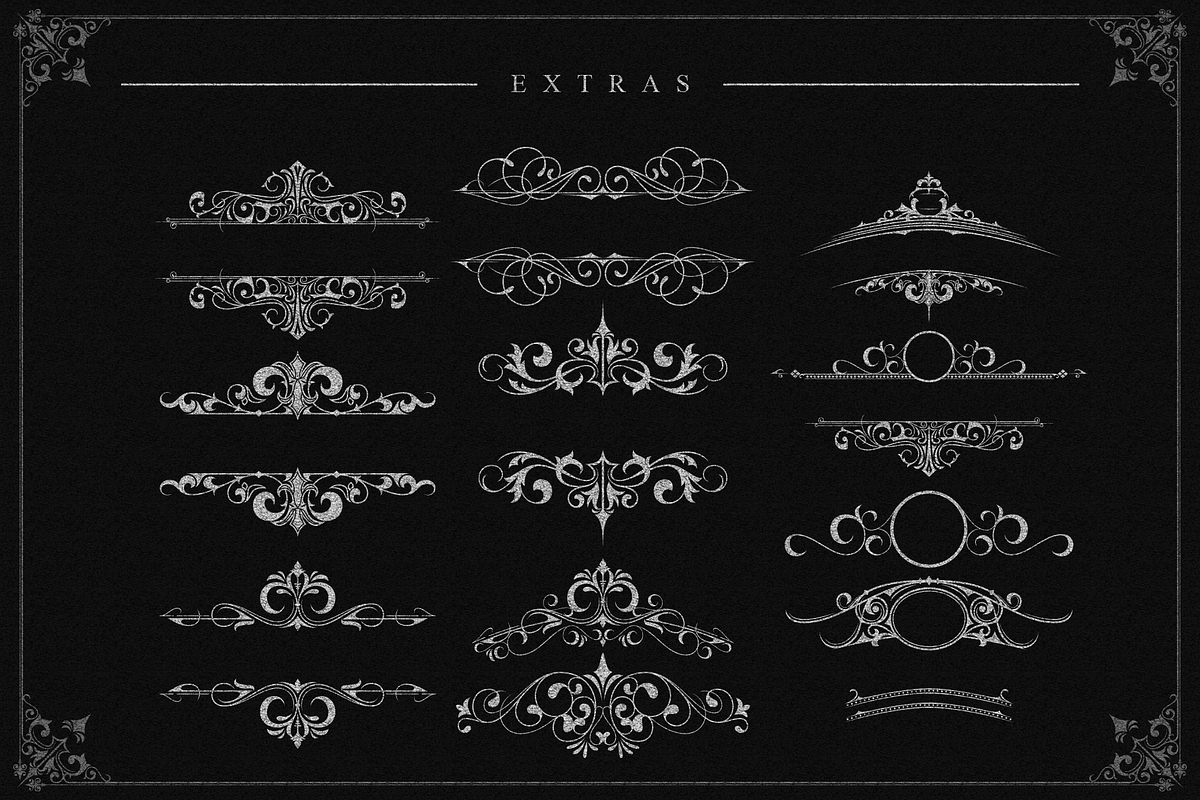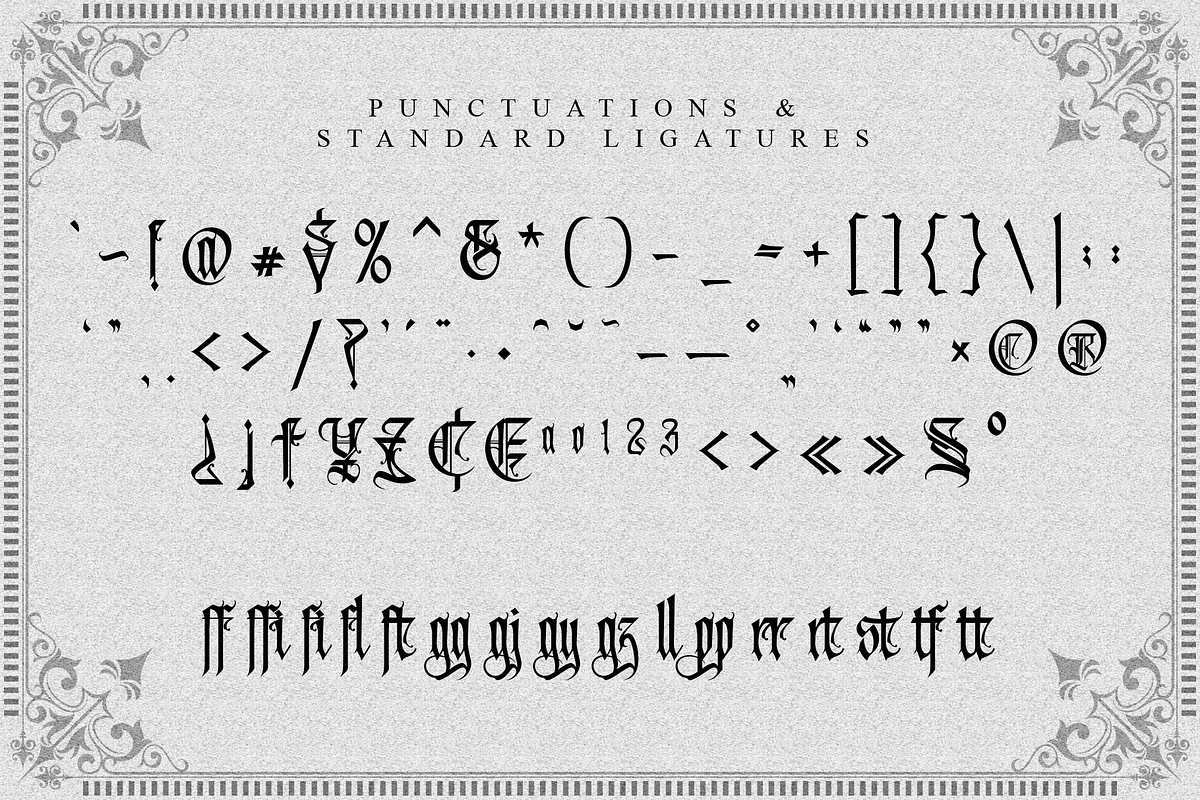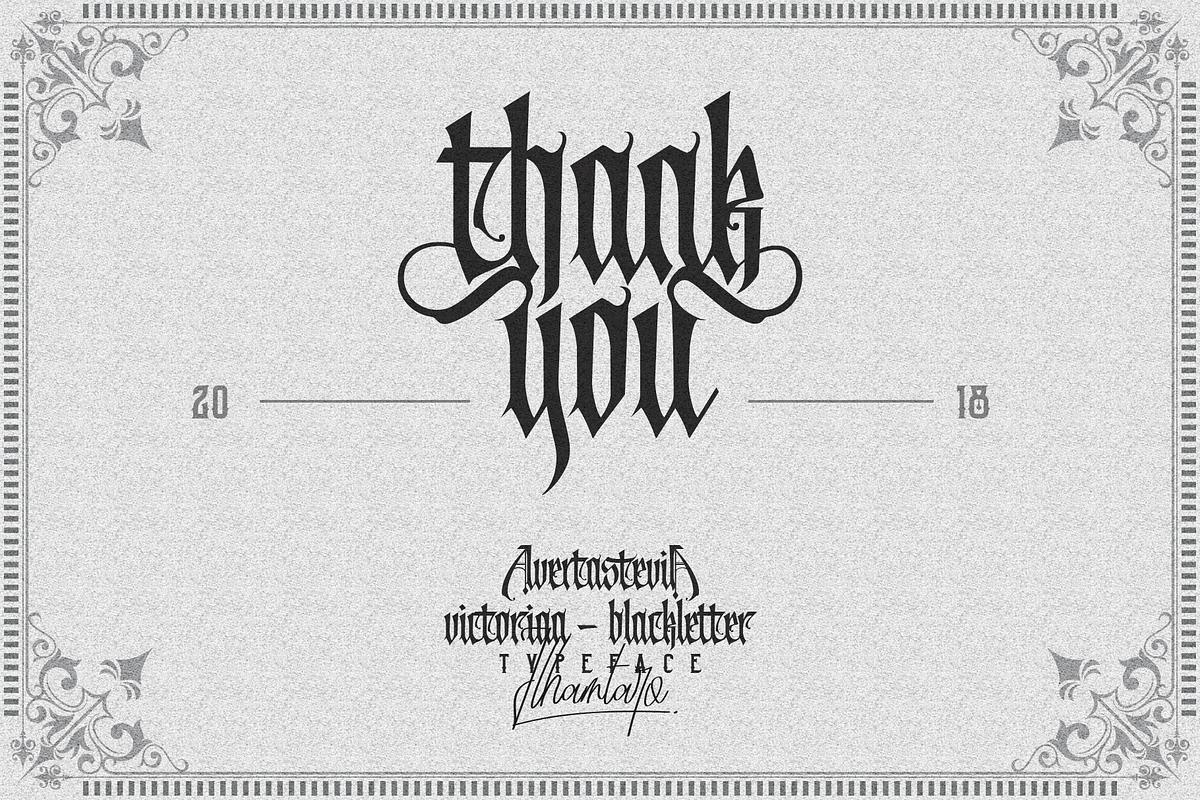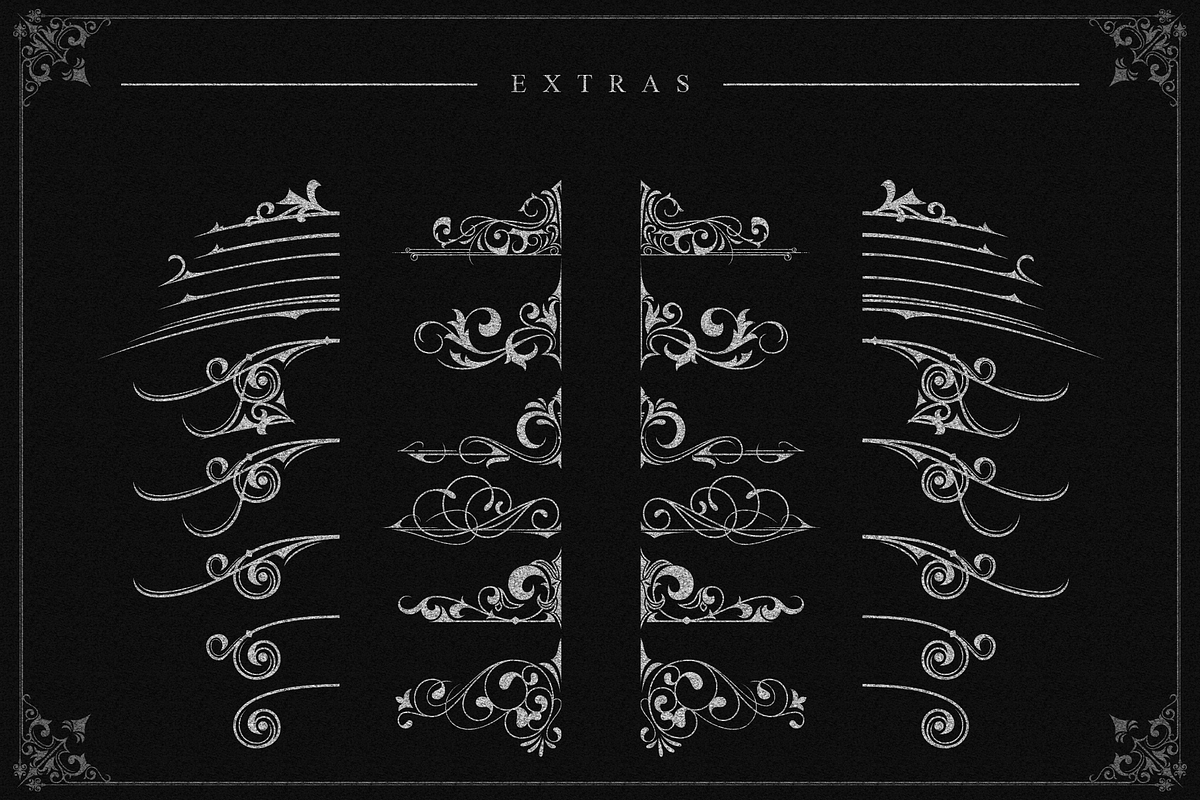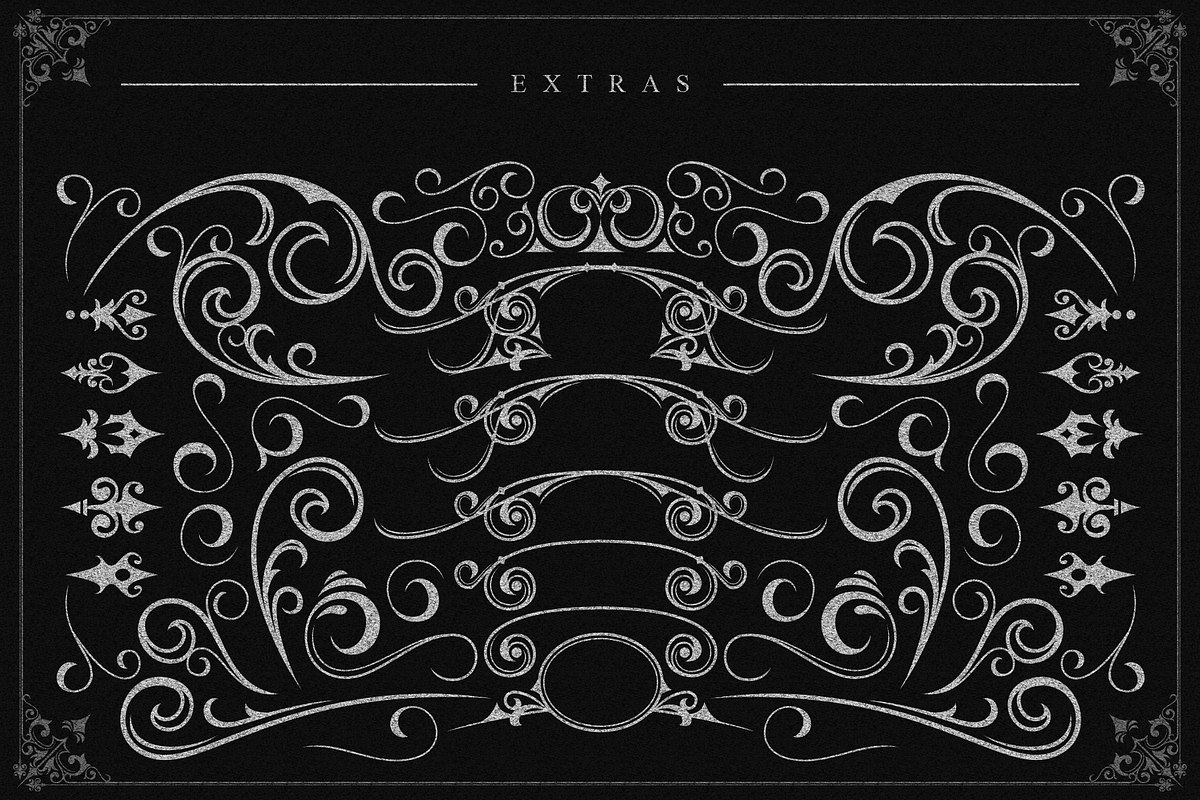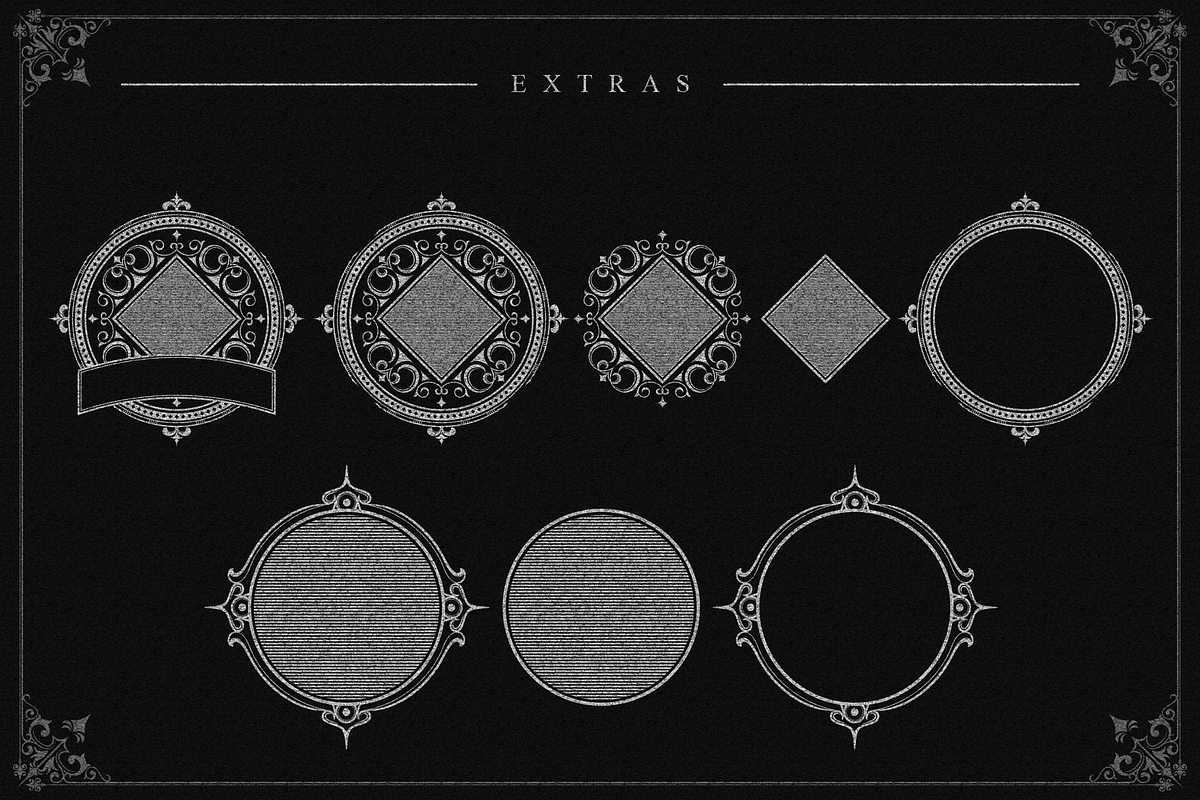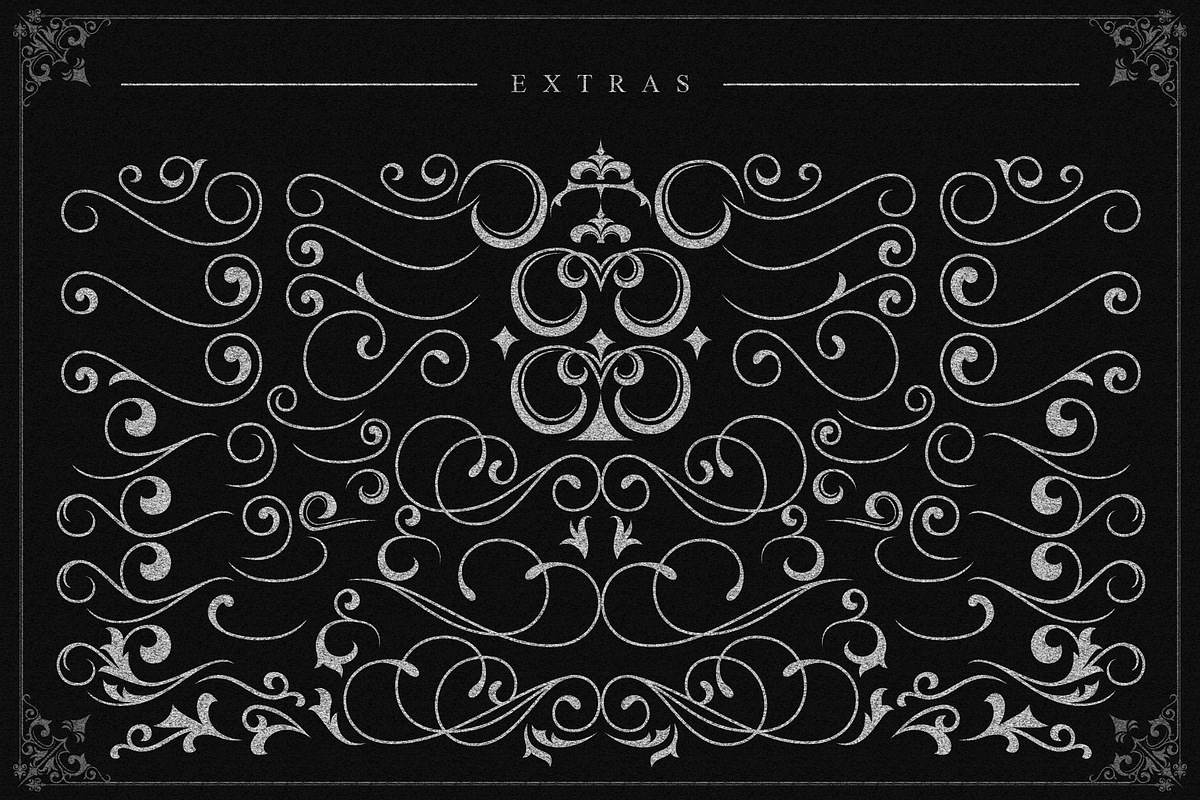
Avertastevia for Tattoo & Liquor
AVERTASTEVIA
is a typeface with Victorian-Blackletter style taste, includes full set of gorgeous uppercase and lowercase letters, numerals, punctuation, ligatures, discretionary ligatures, alternate characters, multilingual characters support and extra ornaments, giving realistic calligraphy victorian-blackletter style.
Avertastevia is very suitable as to make a design choice for Tattoo Logo, Barbershop Logo, Music Events, Badges, Clothing and many more.
Inspired by blackletter calligraphy and victorian style.
Features : Alternate Characters. Ligatures. Discretionary Ligatures. Support Multilingual Characters. Extra Ornaments.